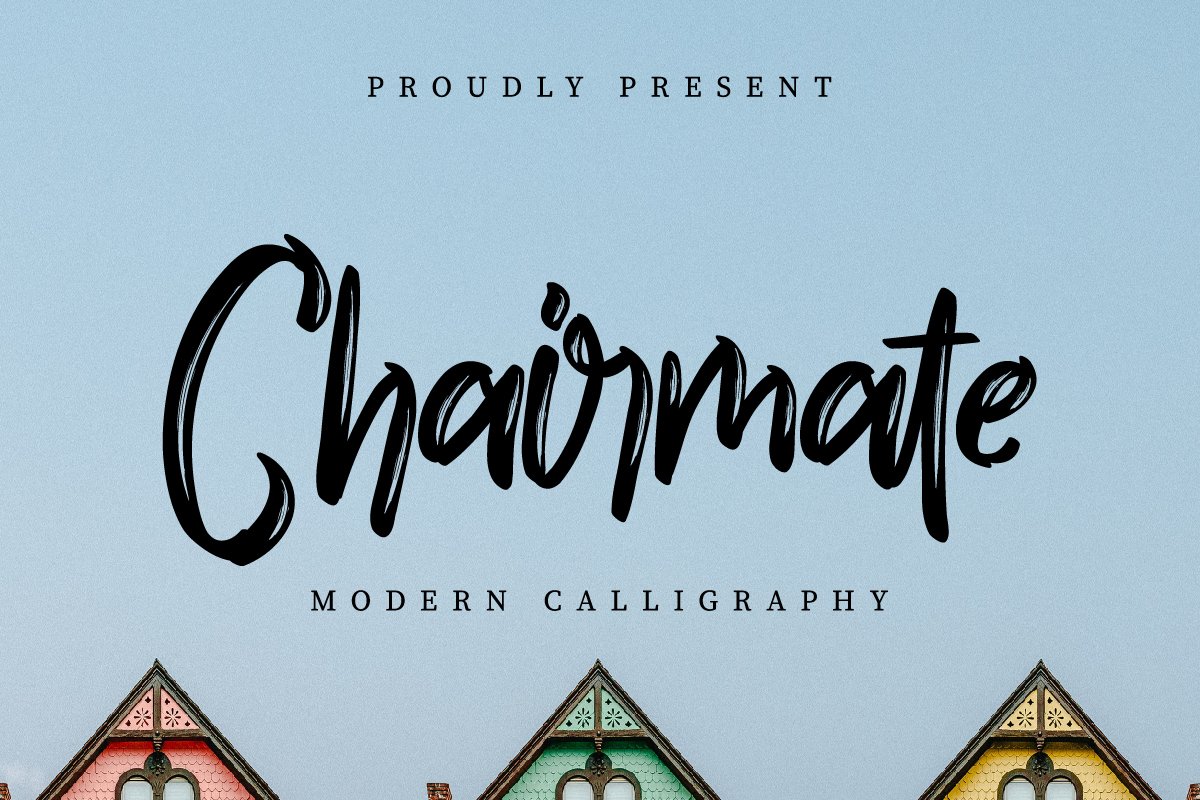
Chairmate
Please welcome! : Chairmate Calligraphy Font
This is a Calligraphy font, handcrafted from our Studio here in, Indonesia. The artists/designers of this beautiful tyeface is Fajar Saepul Rohman and Sarah Suci.
Chairmate Calligraphy Font is an exclusive textured calligraphy script typeface with brush style. This font has a stunning characters set, perfectly managed with well spaced and kerning. The theme style of this font will elegant, vintage, stylish, sophisticated and classic brush calligraphic style. You wont find any where else, the font like Chairmate Calligraphy Font.